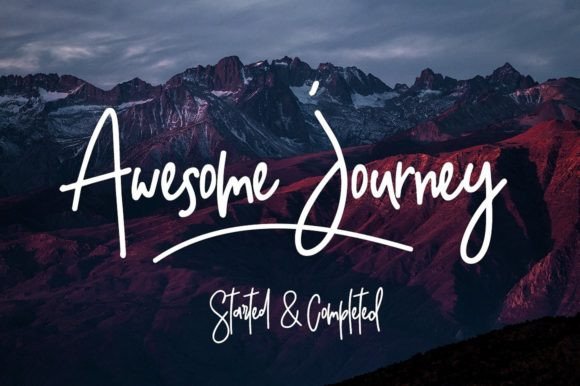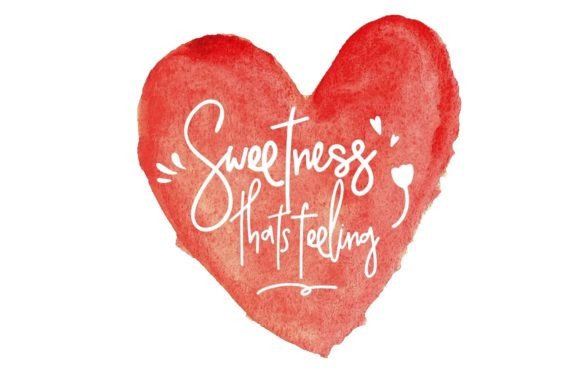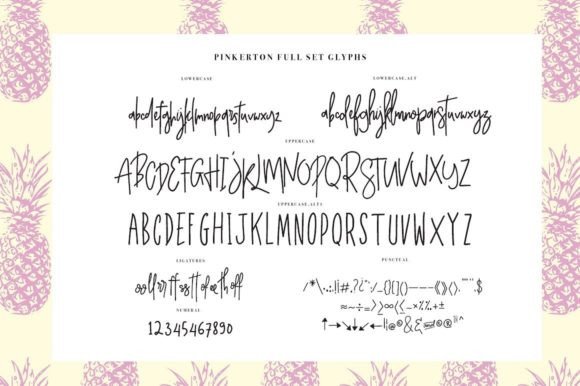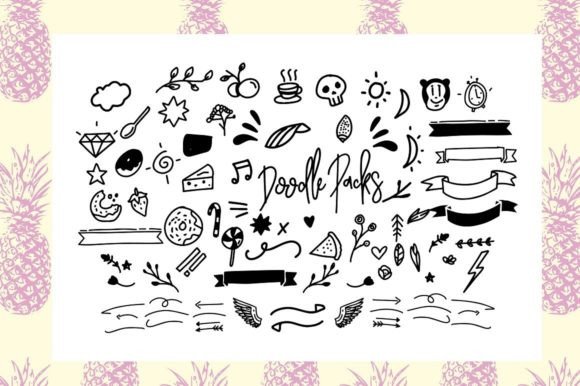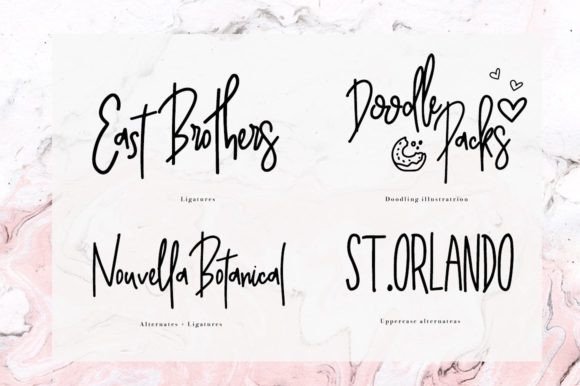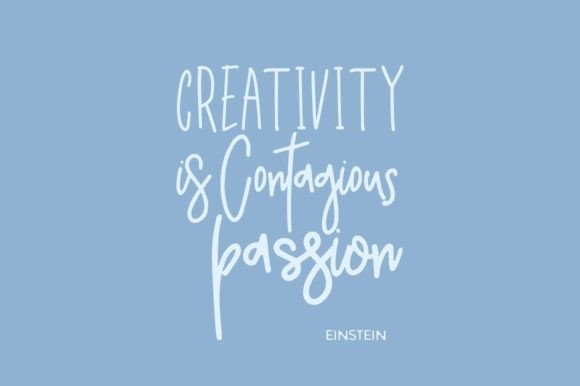
Introduction to Pinkerton Script Font
Remember the moment when you finally nailed the perfect design for your client’s project? The one that left them speechless and wanting more? It’s those moments that make all the hard work worth it, and a key part of that success often lies in the fonts we choose. For designers, finding the right font can be the difference between a mediocre design and a masterpiece.
That’s where the Pinkerton Script Font comes in – a stunning handwritten font that elevates any project to new heights. With its classic yet modern look, it’s a timeless choice that never goes out of style. Whether you’re working on a creative project that requires a touch of sophistication or need a design resource that exudes elegance, Pinkerton Script Font is an excellent choice. Its high-quality design makes it perfect for use on a transparent background, and it’s available for free download, making it an invaluable asset for any designer.
Key Features of Pinkerton Script Font
- Unique, handwritten style with a touch of elegance, making it perfect for creative projects.
- High-quality design with a transparent background, allowing for seamless integration with any design.
- Available in a single font size, with a resolution of 300 DPI, suitable for print and digital use.
- Perfect for use in invitations, quotes, and other creative projects where a handwritten touch is desired.
- Easy to use and customize, making it a great choice for designers and non-designers alike.
Honest Review: Pinkerton Script Font
As a designer, I’ve come across numerous fonts that promise to elevate my creative projects. The Pinkerton Script Font is one such font that caught my attention, and I’m excited to share my honest review.
- High-quality design: The Pinkerton Script Font boasts a beautiful, elegant design that’s perfect for any creative project.
- Transparent background: The font’s transparent background makes it easy to use on any design, whether it’s a logo, poster, or website.
While the Pinkerton Script Font is a great addition to any design resource, I do have a few limitations to mention:
- Not ideal for body text: The font is best used for headings and titles, as it can be difficult to read in larger blocks of text.
- No bold or italic styles: The font only comes in regular weight, which can limit its versatility.
Overall, I’m impressed with the Pinkerton Script Font. It’s a beautiful, high-quality font that’s perfect for creative projects. While it has some limitations, I think it’s a great addition to any design resource, especially for those on a budget.
Pinkerton Script Font
Open PowerPoint or Word and select the text tool. Choose the Pinkerton Script Font from the font library and adjust the size and color to your liking. You can also add a transparent background by using the “Format Text” options.
Tips for Getting the Most Out of Pinkerton Script Font
To get the most out of the Pinkerton Script Font, use it sparingly and in combination with other high-quality design resources. Experiment with different font sizes and colors to create a unique look.
The Pinkerton Script Font is perfect for creative projects such as wedding invitations, birthday cards, and social media graphics. Its elegant and sophisticated design makes it ideal for use in high-end branding and marketing materials.